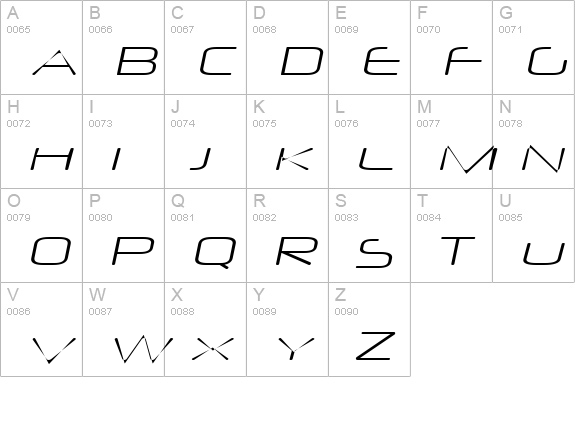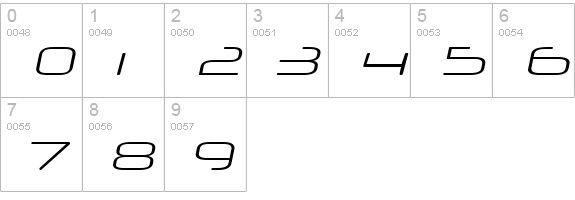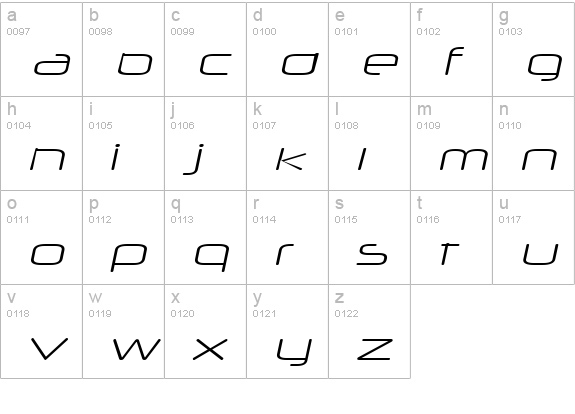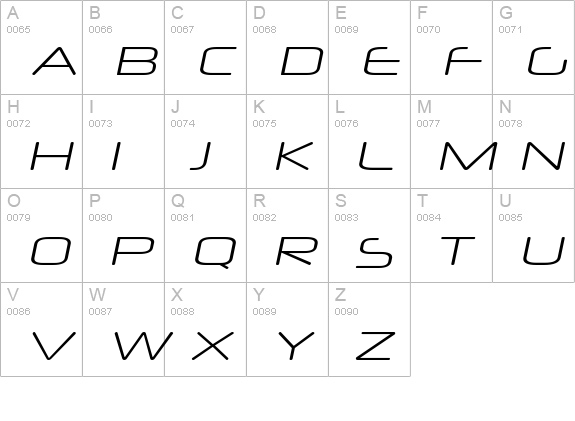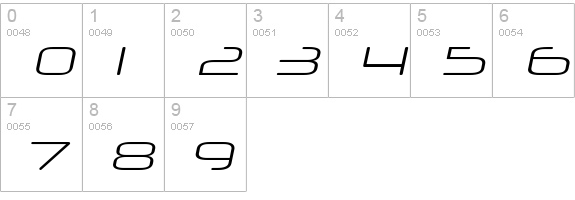
Neuropol X Xp Lite Italic Font Details
Neuropol X Xp Lite Italic is a distinctive, italic variant in the Neuropol typeface family \xE2\x80\x94 well suited to design and typography projects.
Neuropol X Xp Lite Italic font is a sleek and modern typeface that exudes sophistication and style. Its italic design adds a touch of elegance to any project, making it perfect for use in branding, advertising, and editorial design. The font features clean lines and a futuristic aesthetic that is sure to captivate viewers. What's even better is that Neuropol X Xp Lite Italic font is available for free download at FontsMarket.com. This means you can easily access this stunning typeface without breaking the bank. Whether you're a professional designer looking to add a fresh new font to your collection or a hobbyist seeking to enhance your creative projects, Neuropol X Xp Lite Italic font is a fantastic choice that won't cost you a penny. Download it today and elevate your designs with this eye-catching and versatile font.